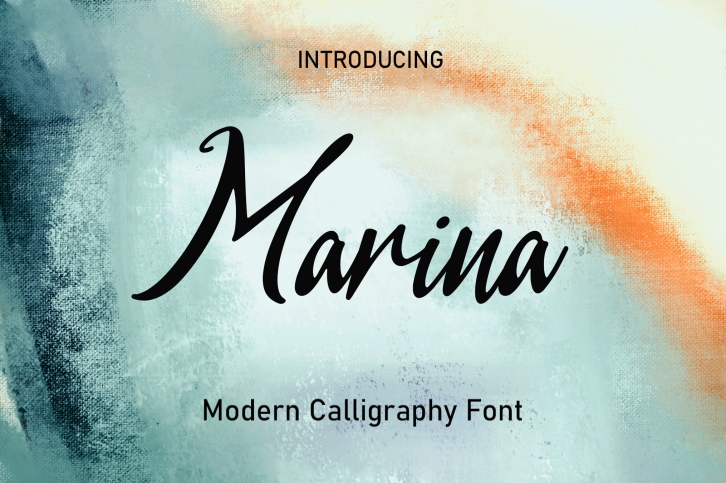
Marina is a modern handwritten font. It has a charming slim body and carefully carved characters to complement logos, website headers, fashion designs, wedding card designs, and more.